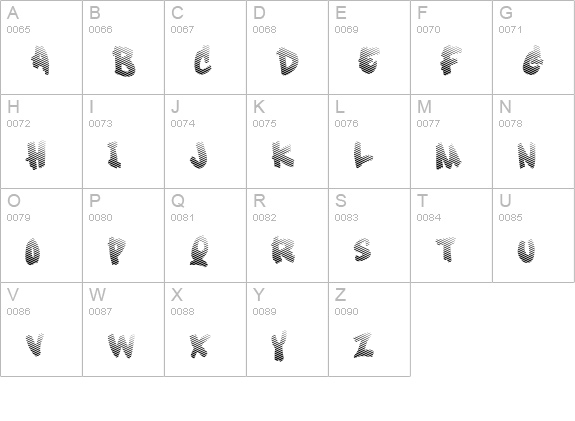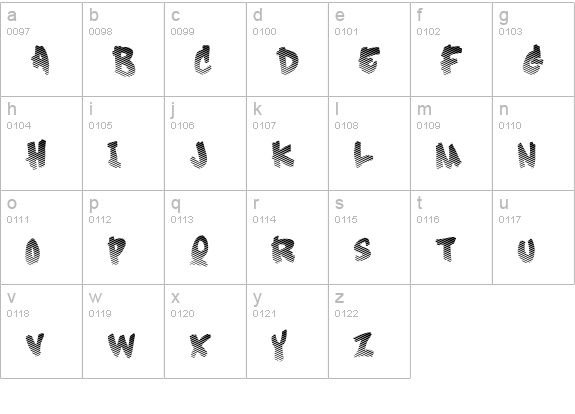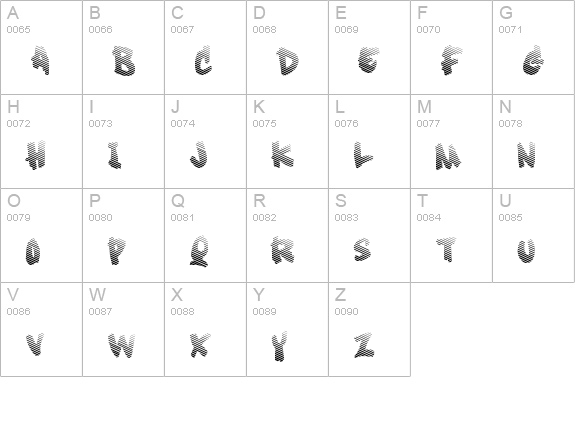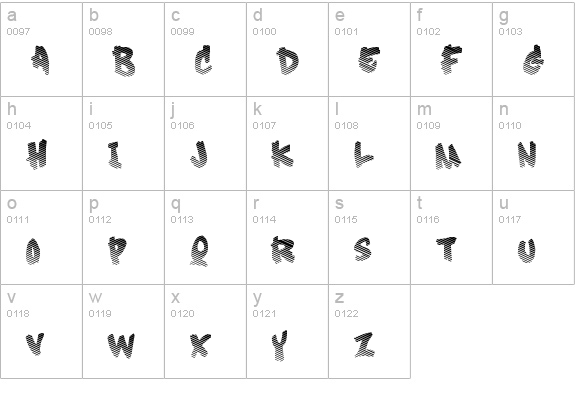
Soft Sugar fade font is a mesmerizing typeface that effortlessly combines softness and elegance. Its gentle curves and delicate fade effect create a uniquely captivating visual experience. This font is perfect for adding a touch of sophistication and charm to any design project. With its graceful strokes and subtle gradient, Soft Sugar fade font exudes a sense of grace and refinement. Whether you're designing a logo, a wedding invitation, or a brand identity, this font will elevate your work to new levels of beauty and sophistication. The best part is, Soft Sugar fade font is available for free! You can easily download it at FontsMarket.com, a trusted source for high-quality fonts. By offering this font for free, we aim to make it accessible to everyone, regardless of their budget. We believe that great design should be within reach for all, and Soft Sugar fade font is our way of contributing to that vision. So go ahead and download Soft Sugar fade font today. Let its softness and fade effect mesmerize your audience, and watch as your designs come to life with elegance and grace. Whether you're a professional designer or a hobbyist, this font will undoubtedly become a valuable addition to your creative toolbox.